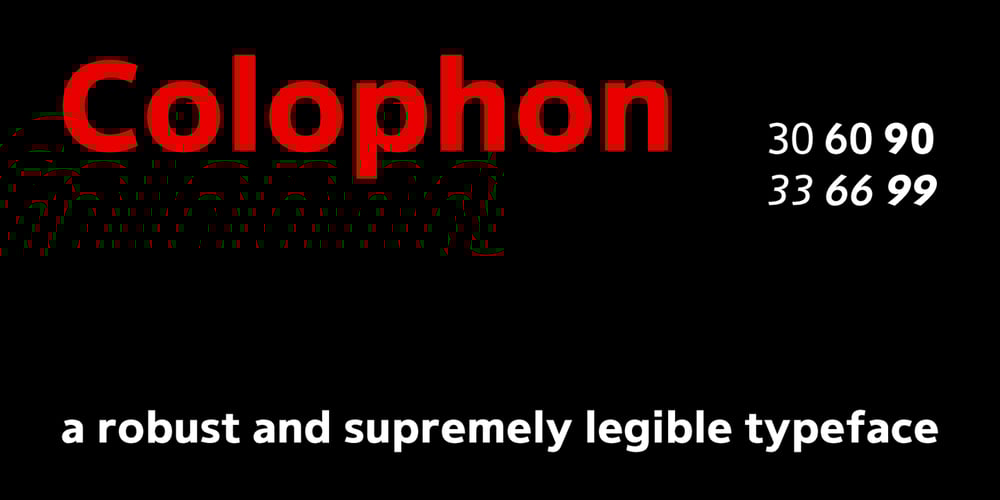
Colophon Font Family was designed by Roy Cole and published by Roy Cole. Colophon contains 6 styles and family package options. During development of Colophon 30, the base font of the typeface family, two requirements emerged; namely that it should demonstrate good legibility and robustness when used for text composition, and where individual characters become more apparent, as in much larger sizes, these should appear well formed. Colophon 60 and 90 progressively increase in x-height to allow the counters to retain openness. The italics lean towards informality, this being apparent in the descender tails. On account of its neutrality there are few instances where the use of Colophon would be inappropriate; a quality that can also be attributed to Roy Cole’s other typeface families: Lina, Zeta and Coleface.